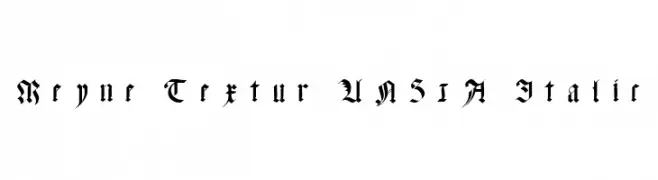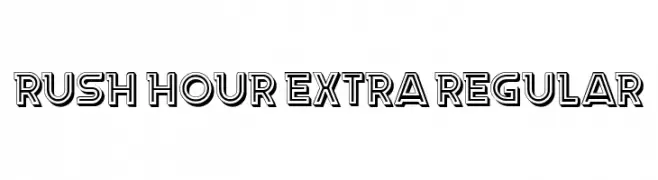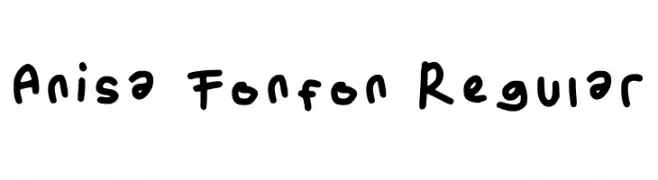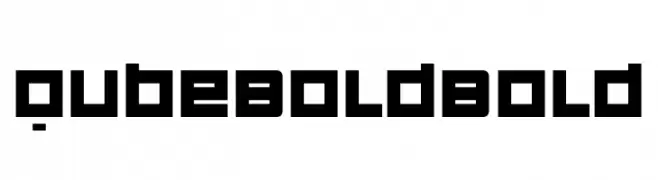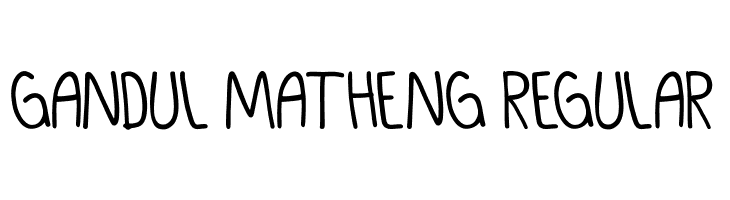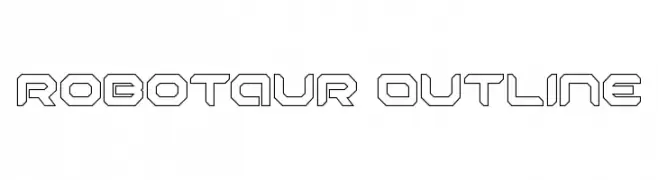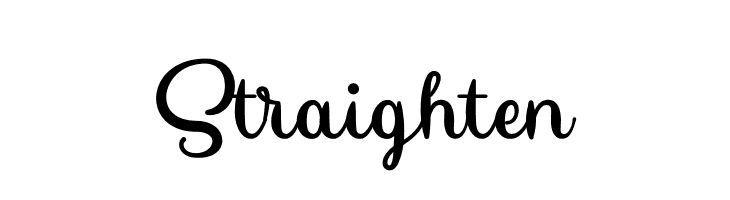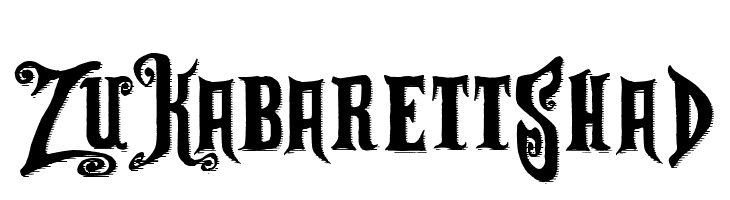
A bold, slanted script font with high contrast and fluid connections.
A bold, intricate Blackletter font with a gothic, medieval aesthetic.
A sleek, italic font with elongated, narrow letterforms and a modern, dynamic style.
A decorative font with a bold, grid-patterned style.
A bold, three-dimensional font with a shadow effect, offering a modern and dynamic look.
A bold, energetic script font with sweeping strokes and a lively style.
A modern, condensed font with medium weight and consistent stroke thickness.
A playful, handwritten font with rounded, consistent strokes and a whimsical style.
A bold, playful font with a whimsical, hand-drawn style.
A bold, geometric font with a modern and futuristic style.